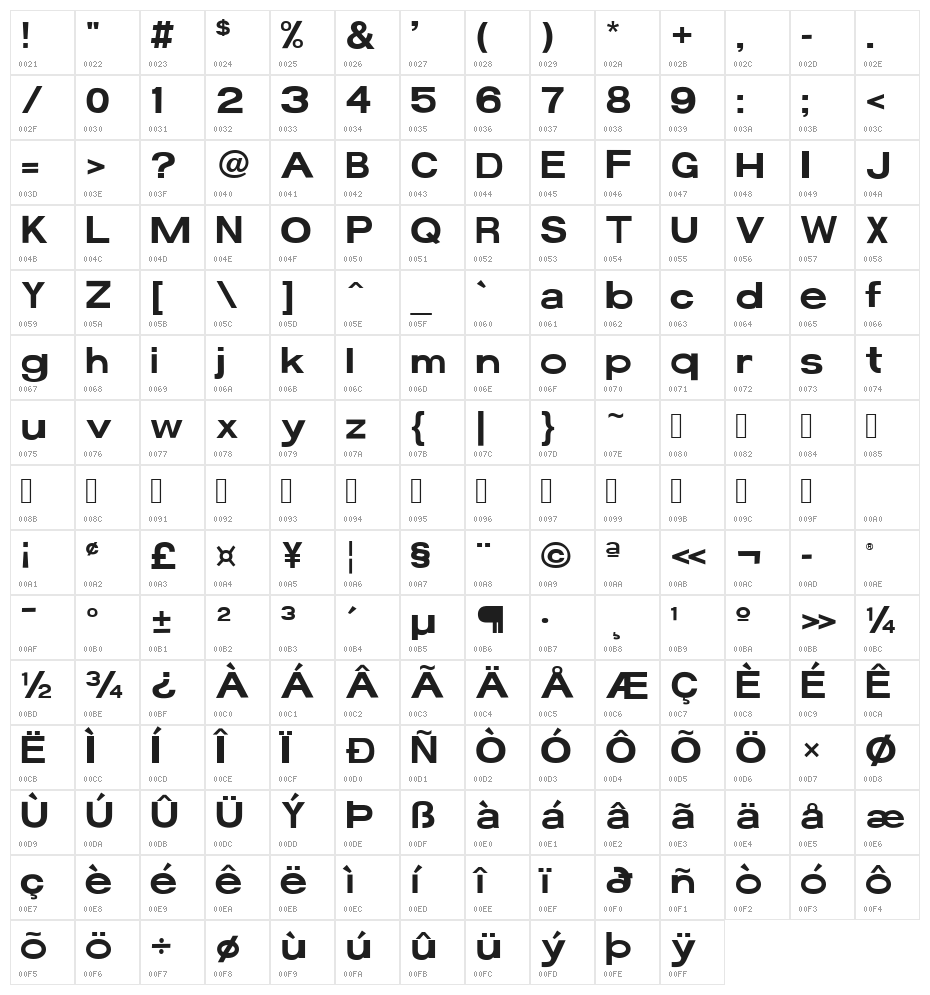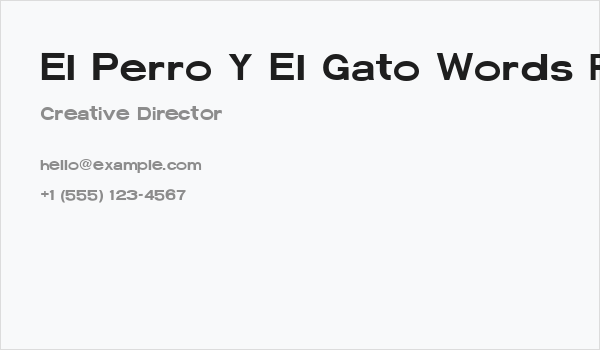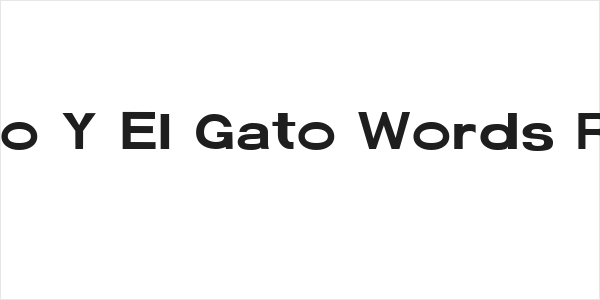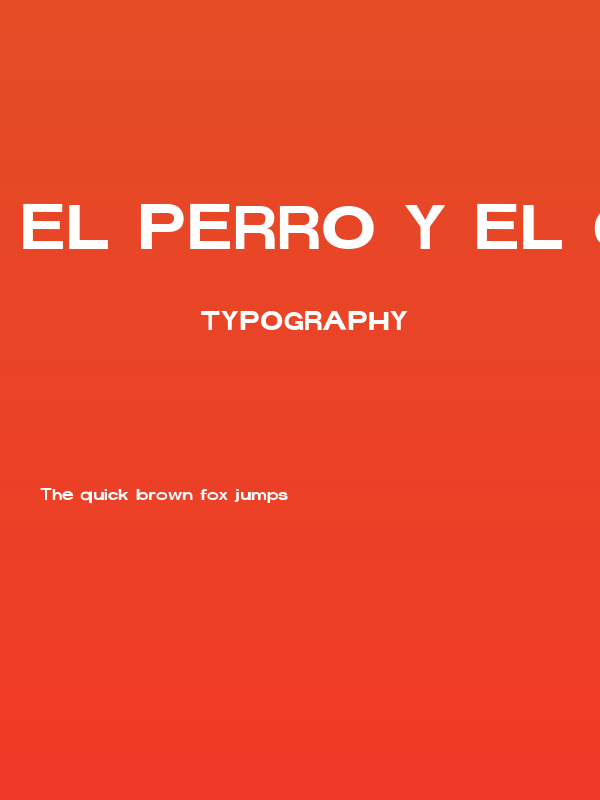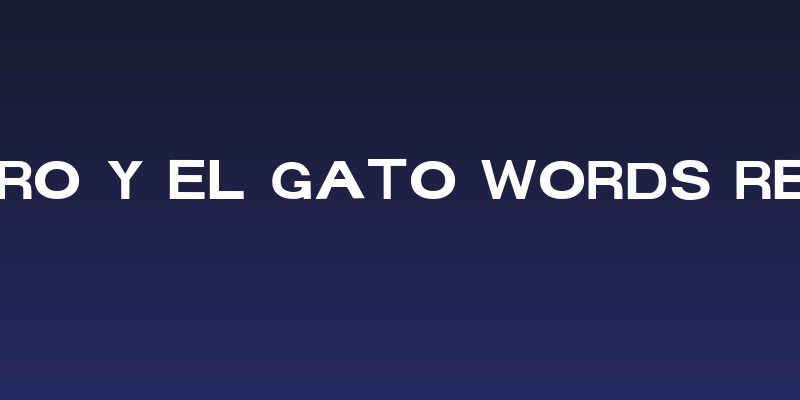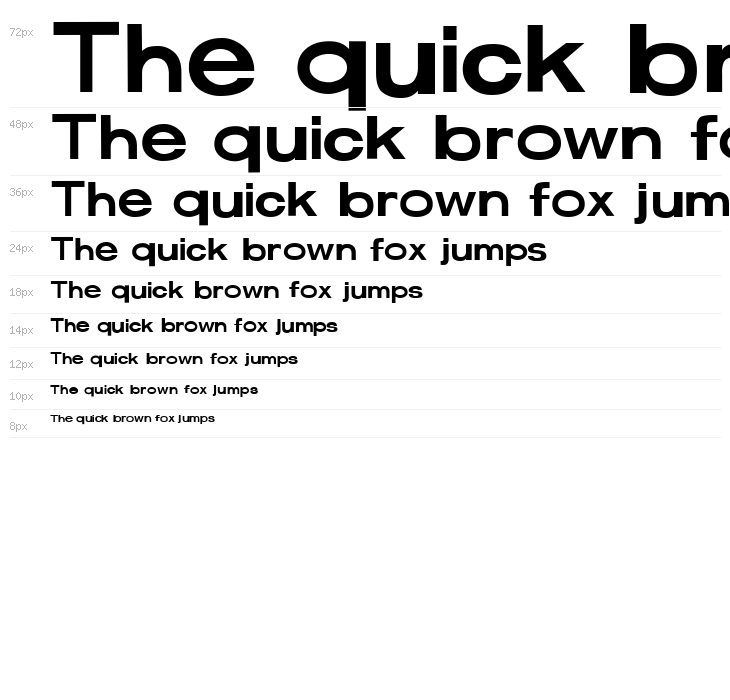
El Perro Y El Gato Words Regular Font
El Perro Y El Gato Words Regular Description
This font features a bold and modern sans-serif design with clean, geometric lines. The uppercase letters are uniform in height, while the lowercase letters maintain a consistent baseline, offering a harmonious and balanced appearance. The numerals are clear and easily distinguishable, making them suitable for various applications. Special characters are well-defined, ensuring readability and versatility. The overall style is sleek and contemporary, making it ideal for projects that require a strong visual impact.
| Use Case | Headlines, Logos, Advertising |
| Proposed Projects | Ideal for branding, advertising, headlines, and digital media projects that require a strong, modern aesthetic. |